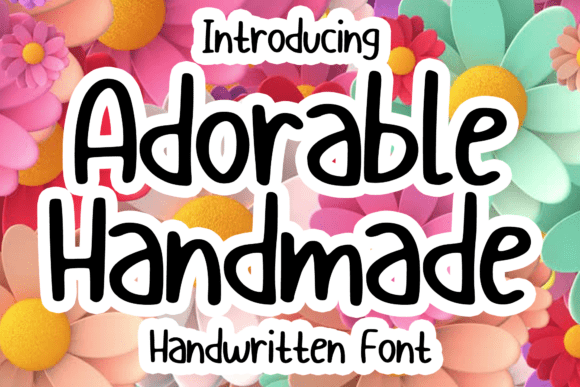
Get Ready to Fall in Love with the Perfect Handwritten Font
Have you ever been stuck in a design rut, struggling to find the perfect font to bring your creative vision to life? We’ve all been there – staring blankly at our screens, wondering which font will convey the right message, evoke the right emotions, and leave a lasting impression on our audience. For designers, finding the perfect font can be a daunting task, but what if we told you that there’s a solution that’s both charming and versatile?
Enter Adorable Handmade Font – a delightful, one-of-a-kind handwritten font that’s perfect for adding a touch of whimsy and personality to your designs. With its playful, lighthearted feel, Adorable Handmade Font is ideal for a wide range of creative projects, from stickers and t-shirts to book covers and cartoon illustrations. Whether you’re a seasoned designer or just starting out, this font is sure to become your go-to choice for adding a sprinkle of magic to your work.
Key Features of Adorable Handmade Font
- Unique Hand-Drawn Design: The font features a charming, handmade design that adds a personal touch to any text.
- Perfect for Creative Projects: The Adorable Handmade Font is ideal for crafting, scrapbooking, and other creative projects that require a unique and personalized touch.
Designer Review: Adorable Handmade Font
Overall, I’m thoroughly impressed with the Adorable Handmade Font. Here are some things that really stand out:
- ✨ Unique style: This font has a certain je ne sais quoi that sets it apart from other, more generic fonts.
- ✨ Whimsical charm: The font’s handmade aesthetic gives it a charming, playful feel that’s perfect for creative projects.
- ✨ High-quality design: The font is well-designed, with clear and readable letterforms.
That being said, there are a few limitations to consider:
- ⚠️ Limited character set: The font may not include every character you need, which could be a problem for certain projects.
- ⚠️ Not ideal for large text: While the font is great for smaller text sizes, it may not be the best choice for headings or titles.
Overall, I think the Adorable Handmade Font is a great choice for designers who want to add a touch of personality to their projects. Just be aware of the limitations and use it judiciously. With a little creativity and planning, this font can be a real showstopper.
Tips for Getting the Most Out of Adorable Handmade Font
Here are some tips for getting the most out of Adorable Handmade Font:
- Use it for personal projects, such as invitations, cards, and scrapbook pages.
- Combine it with other fonts to create a unique and playful look.
Here are some common use cases for Adorable Handmade Font:
- Invitations and party decorations.
- Scrapbook pages and photo albums.
Alternatives to Adorable Handmade Font